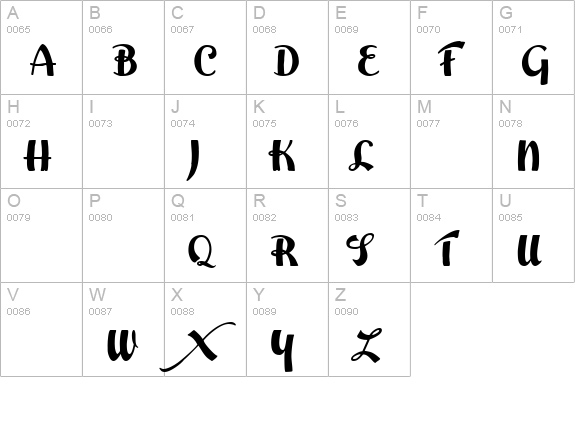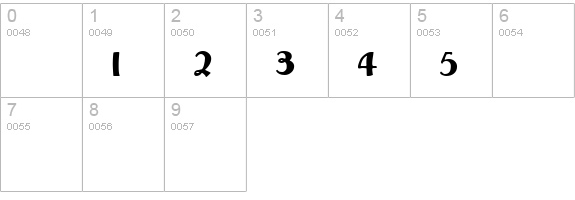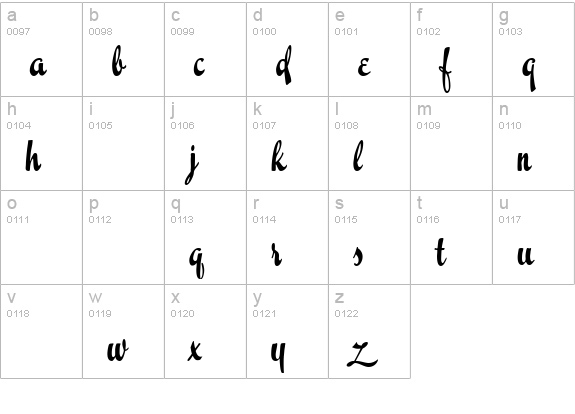
Easter Parade Trial Version Font Details
Easter Parade Trial Version font is an enchanting and whimsical typeface that captures the essence of joy and celebration. With its playful curves and intricate details, this font is perfect for adding a touch of festive charm to your designs. Whether you're designing invitations for an Easter egg hunt, creating greeting cards for loved ones, or crafting eye-catching posters for spring events, Easter Parade Trial Version font will bring a delightful flair to your projects. This trial version allows you to experience the beauty of Easter Parade font before committing to the full version. It offers a limited character set, but still showcases the font's stunning craftsmanship and versatility. Best of all, Easter Parade Trial Version font is free and can be easily downloaded at FontsMarket.com. This means you can explore its whimsical charm without any cost. Simply visit FontsMarket.com, locate the font, and click the download button to start using this delightful typeface in your designs. Don't miss out on the opportunity to elevate your creative projects with the enchanting Easter Parade Trial Version font. Download it for free at FontsMarket.com and let your imagination run wild with the possibilities.